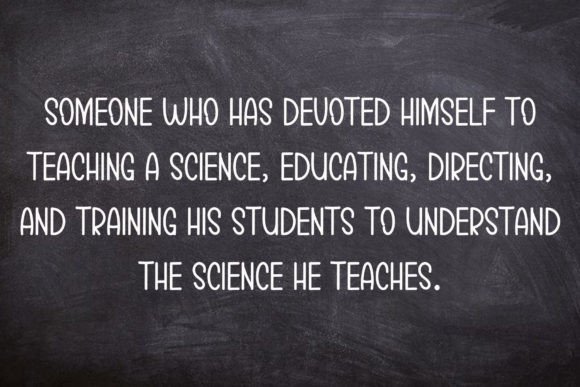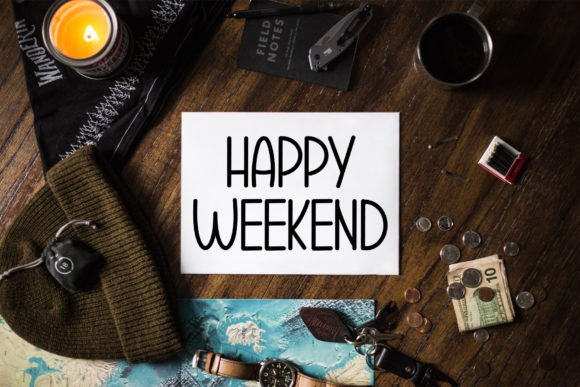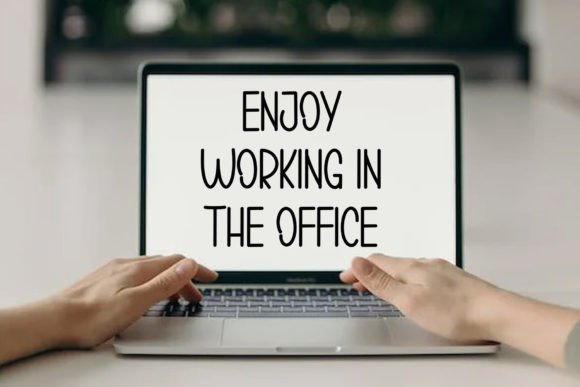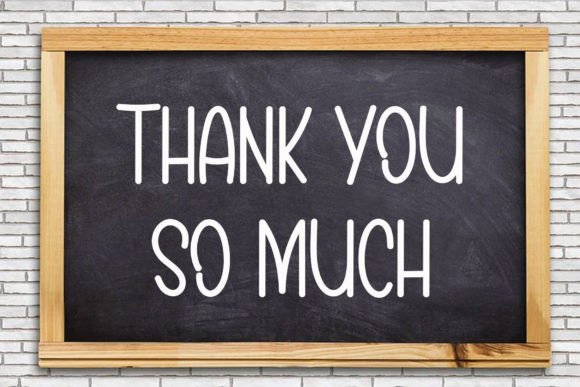
Introducing Digital Planner Font: Elevate Your Creativity with Elegance
In the world of digital design, the right font can make all the difference. For crafters, designers, and DIY enthusiasts, finding the perfect font that combines fun and elegance can be a challenge. However, with the Digital Planner Font, your search is over. This beautifully crafted handwritten font is designed to add a touch of sophistication to your creative projects, making it an ideal choice for Instagram graphics, calligraphy scripts, and more.
The Perfect Blend of Fun and Elegance
Digital Planner Font stands out with its unique blend of playfulness and refinement. Its carefully crafted letters exude a sense of elegance, making it perfect for projects that require a personal touch. Whether you’re working on a digital planner, a social media post, or a DIY craft, this font is sure to turn your creative ideas into stunning pieces of art.
One of the most exciting aspects of Digital Planner Font is its versatility. Designers can use it to create captivating Instagram graphics, while crafters can incorporate it into their DIY projects for a professional finish. The font’s flexibility makes it an excellent addition to any creative toolkit, allowing users to experiment with various design ideas and applications.
Key Features of Digital Planner Font
- Handwritten with care: Each letter has been meticulously crafted to ensure a personal and friendly feel.
- Elegant touch: The font’s sophisticated style adds a touch of class to any project.
- Perfect for Instagram: Create eye-catching social media graphics that stand out.
- Ideal for calligraphy scripts: Use it for DIY projects, journals, and more.
Why Choose Digital Planner Font?
With so many fonts available, why should you choose Digital Planner Font? The answer lies in its unique combination of elegance and playfulness. Unlike other fonts that may lean too heavily on one side, Digital Planner Font strikes the perfect balance, making it suitable for a wide range of projects. Additionally, its ease of use and compatibility with various design software make it a convenient choice for designers and crafters alike.
Digital Planner Font is more than just a font; it’s a tool that can elevate your creative projects to new heights. Its elegant yet playful design makes it an excellent choice for designers and crafters looking to add a personal touch to their work. Whether you’re creating Instagram graphics, calligraphy scripts, or DIY projects, this font is sure to turn your ideas into stunning pieces of art. So why wait? Explore the possibilities with Digital Planner Font today and discover a world of creative potential.